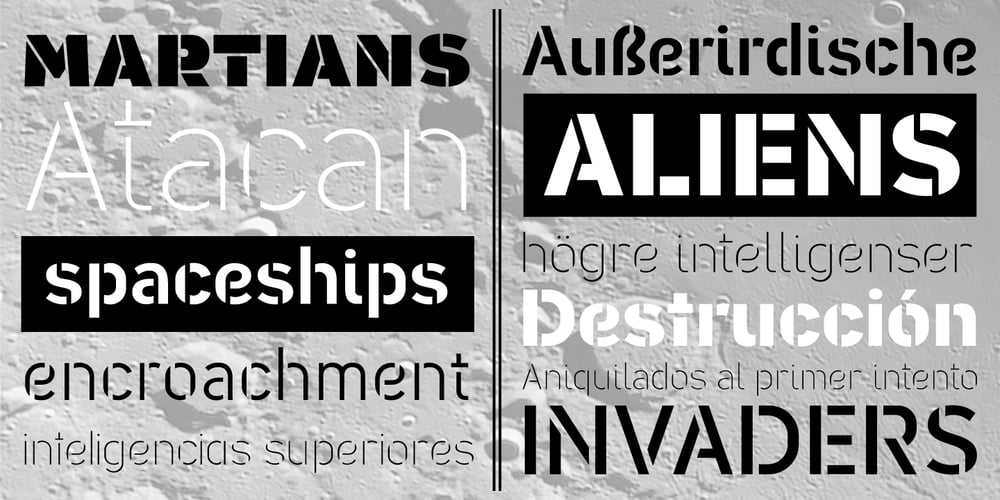
Caracas Stencil Pro Font Family was designed by John Moore and published by John Moore Type Foundry. Caracas Stencil Pro contains 8 styles and family package options. Caracas Stencil Pro is a new family of stencil sans serif fonts, looking friendly, sweet and comfortable to read. Where text flow between straight lines and round by becoming transparent in the interest of readability. Caracas Stencil is ideal for working in small letters and texts of a technical nature. Caracas is a humanistic approach to reading sans forms.